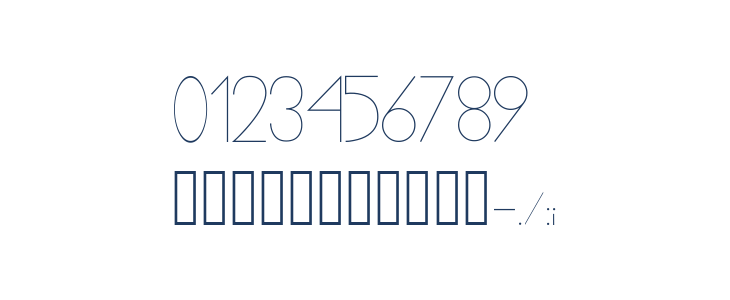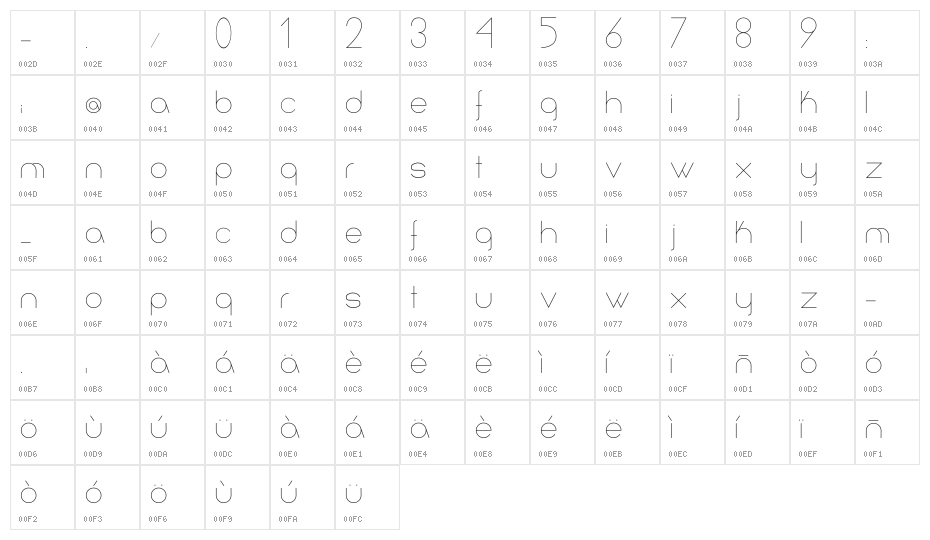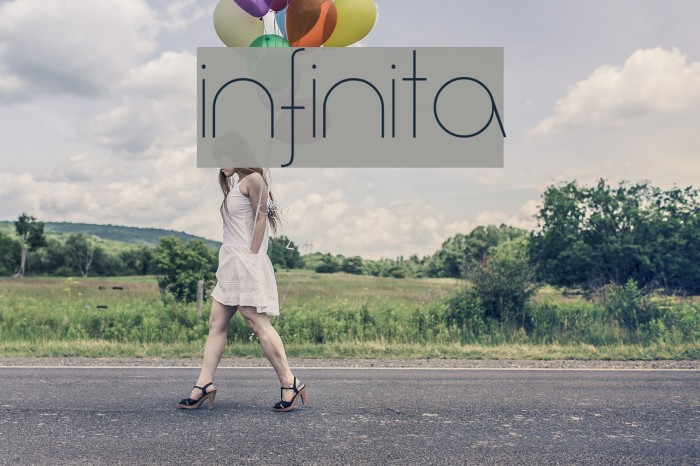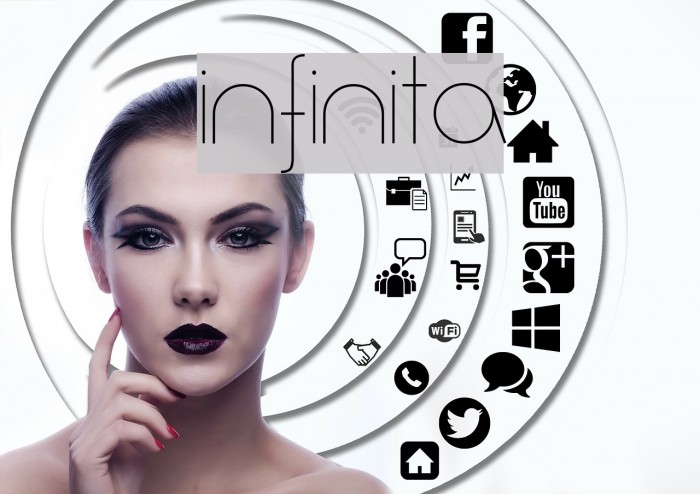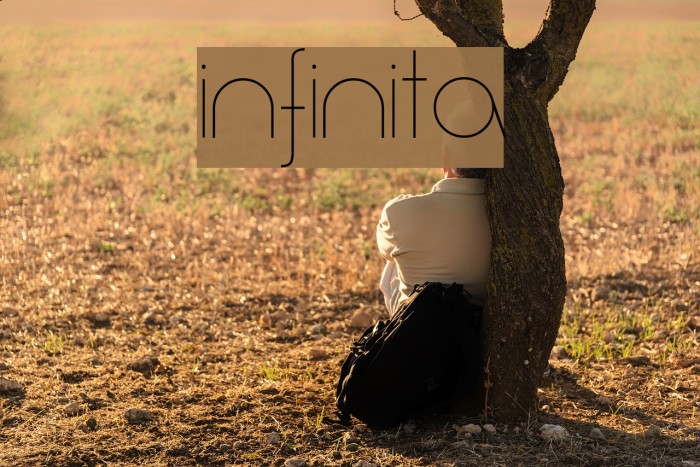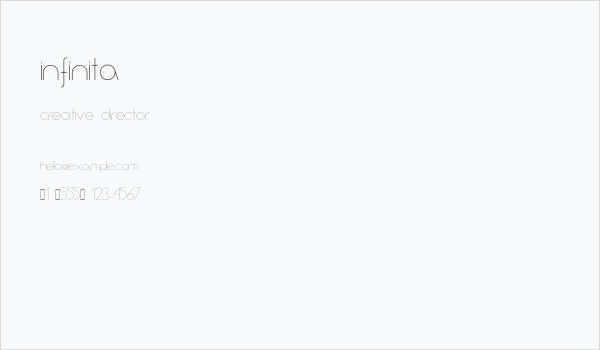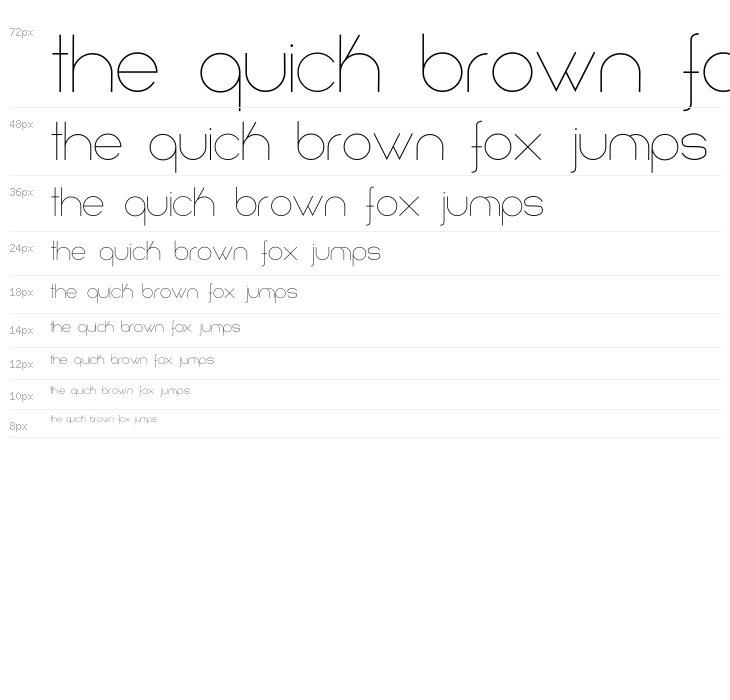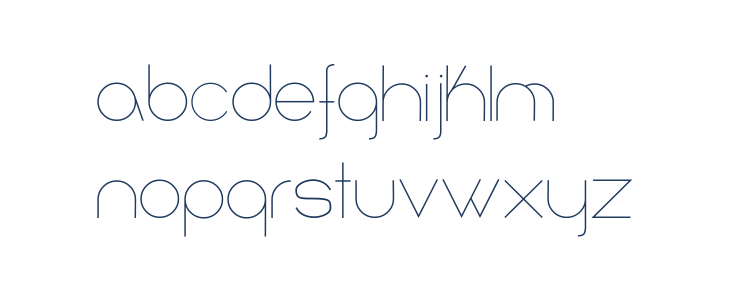
Infinita Font
Infinita Description
This font features a sleek, modern design with thin, uniform lines and a geometric structure. The characters are elegantly elongated, giving a sense of sophistication and minimalism. The uppercase and lowercase letters maintain a consistent height, creating a harmonious visual flow. The numerals are distinct and align well with the overall style, while the special characters complement the set with their clean and straightforward design. The font's simplicity and clarity make it suitable for a variety of applications where a contemporary and refined look is desired.